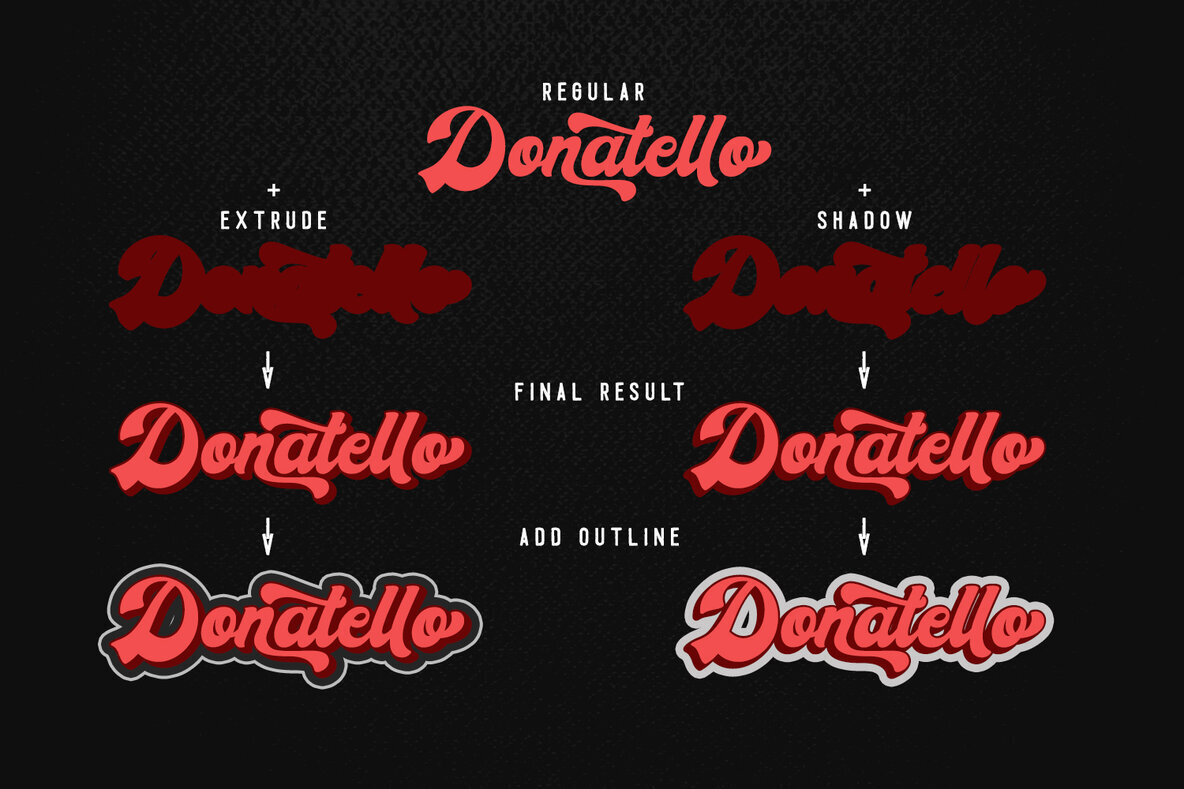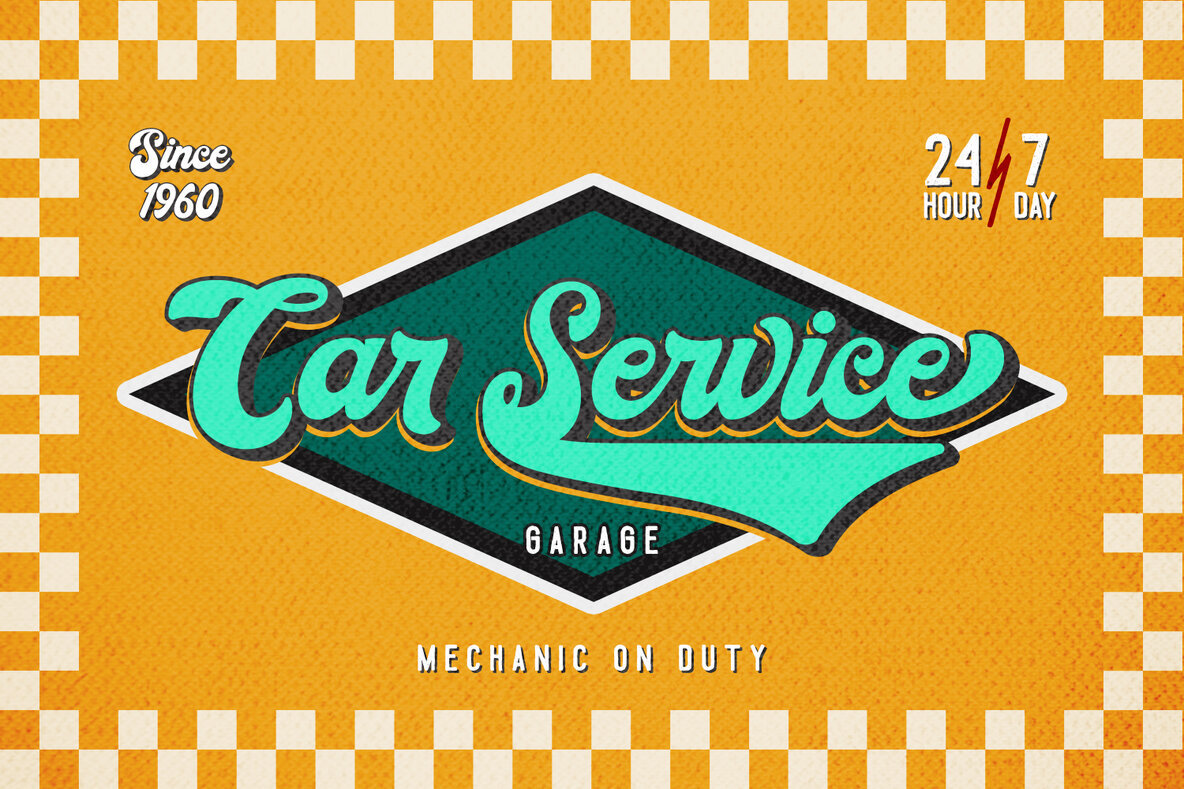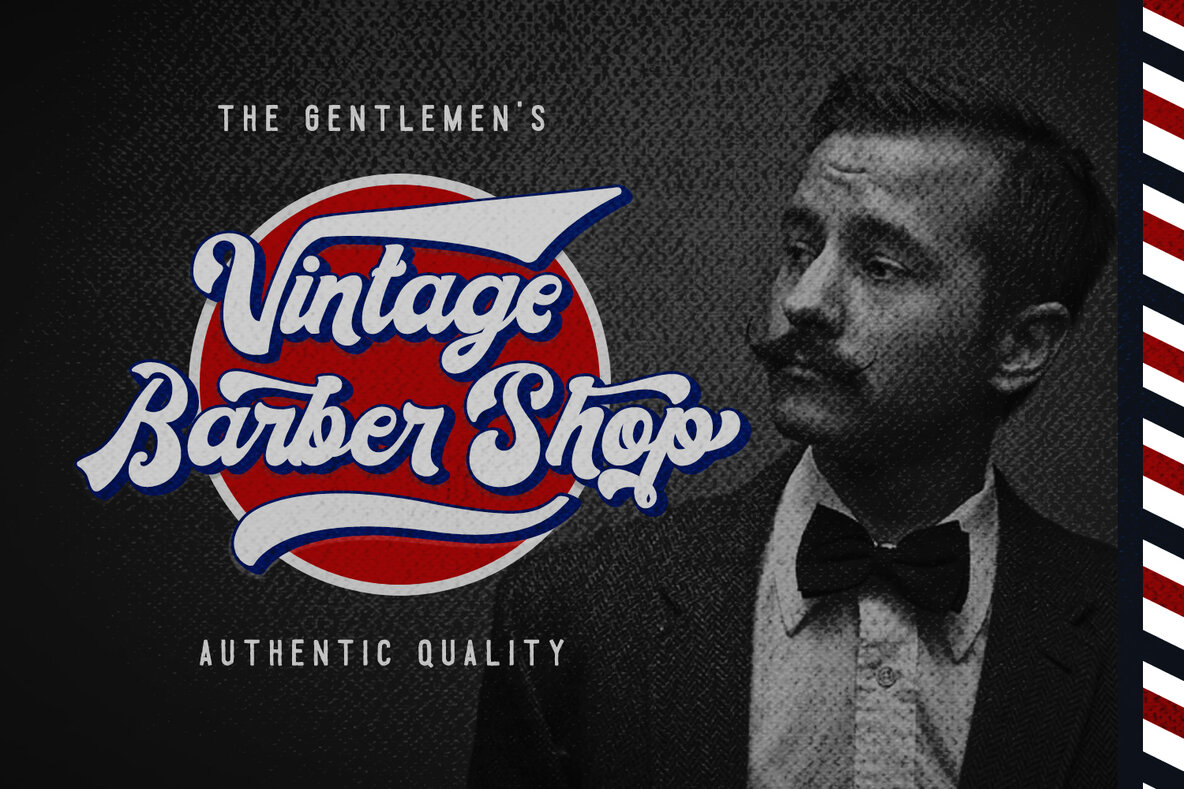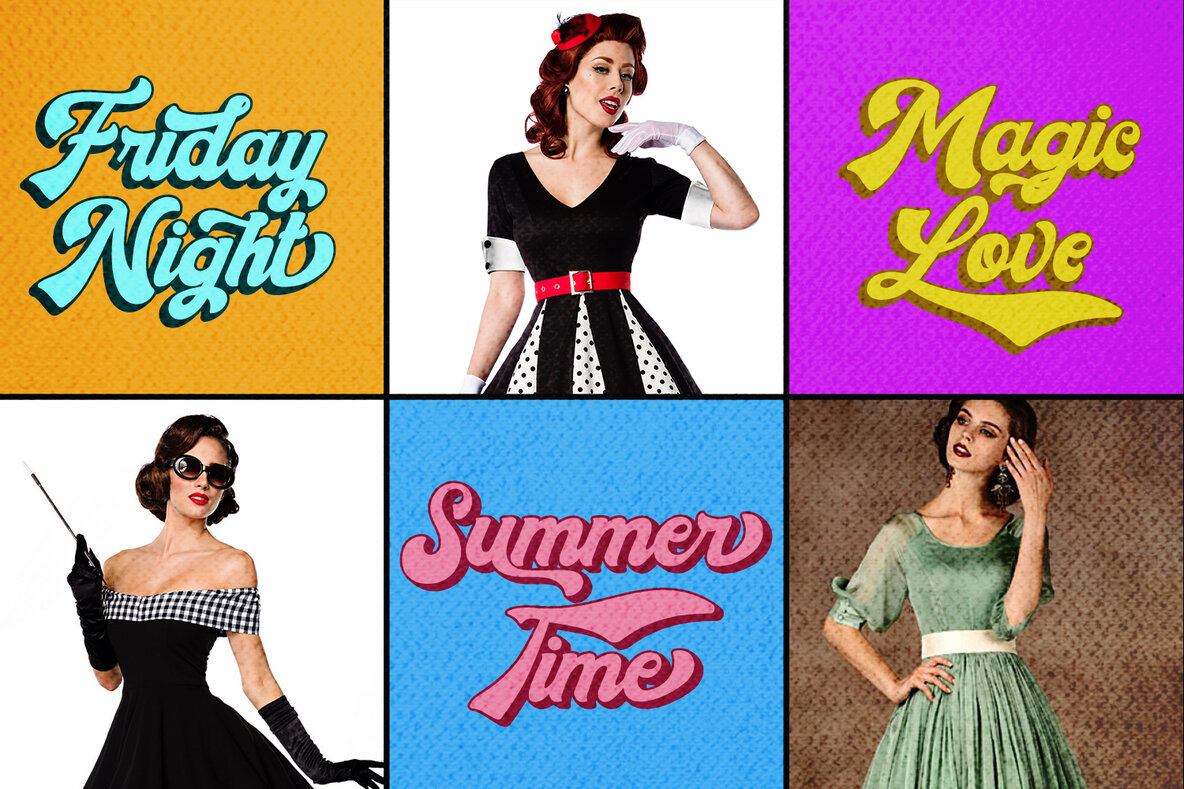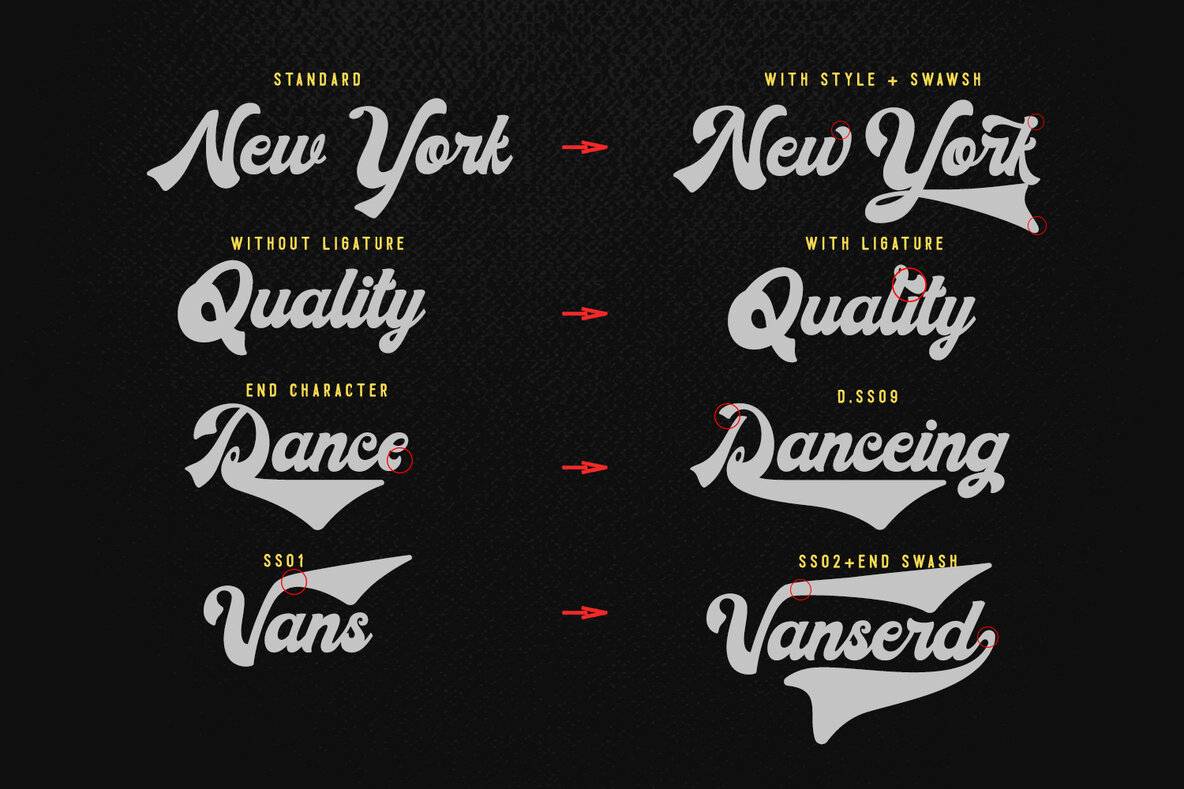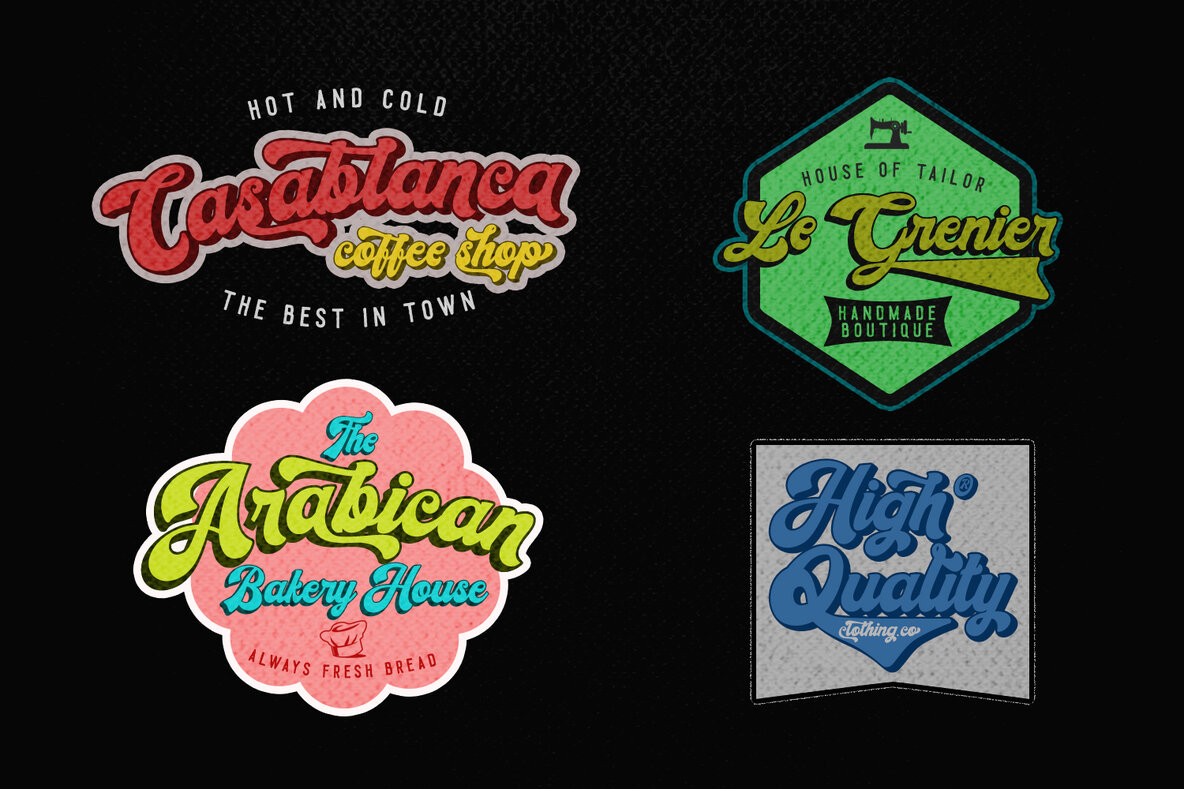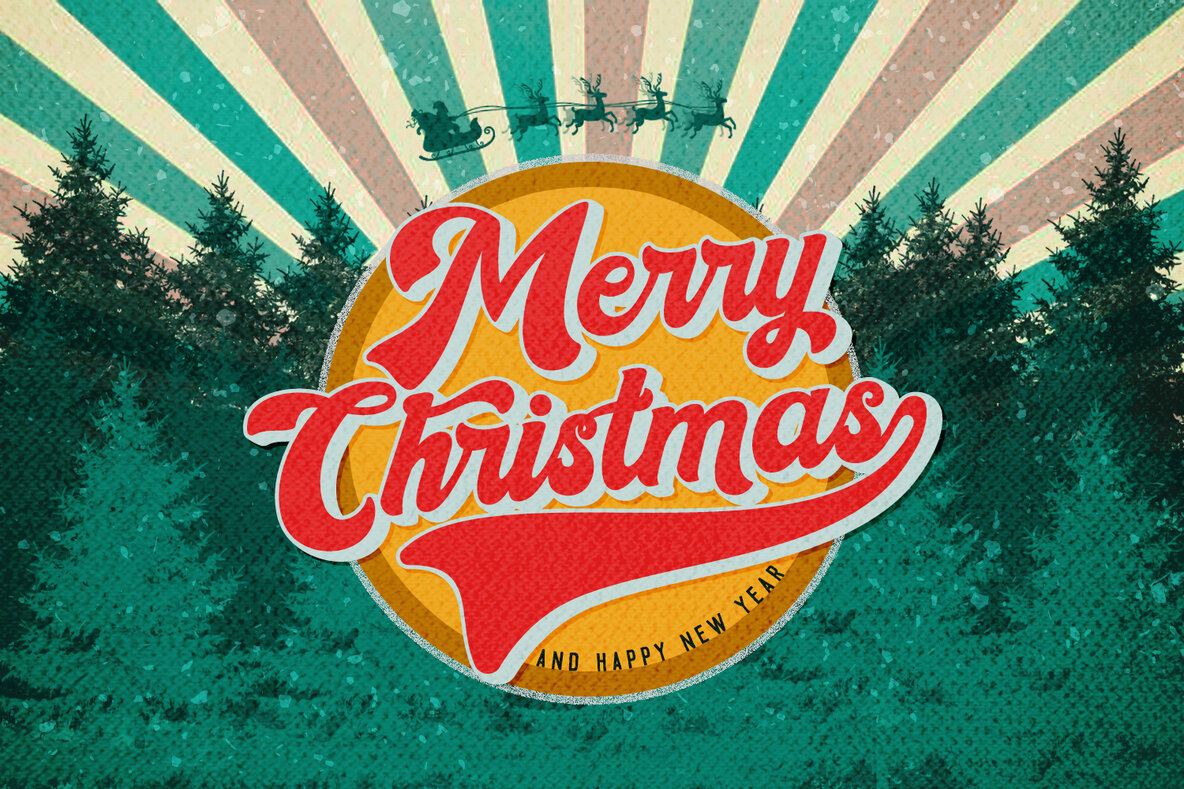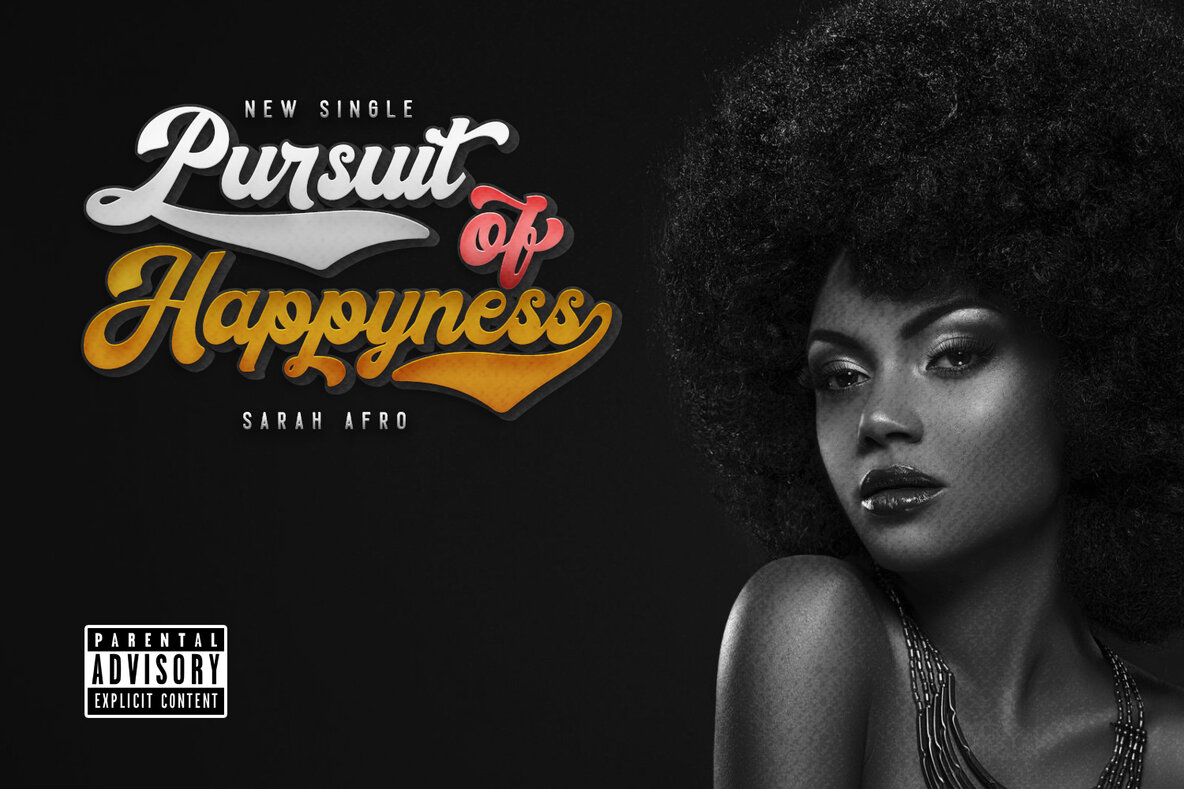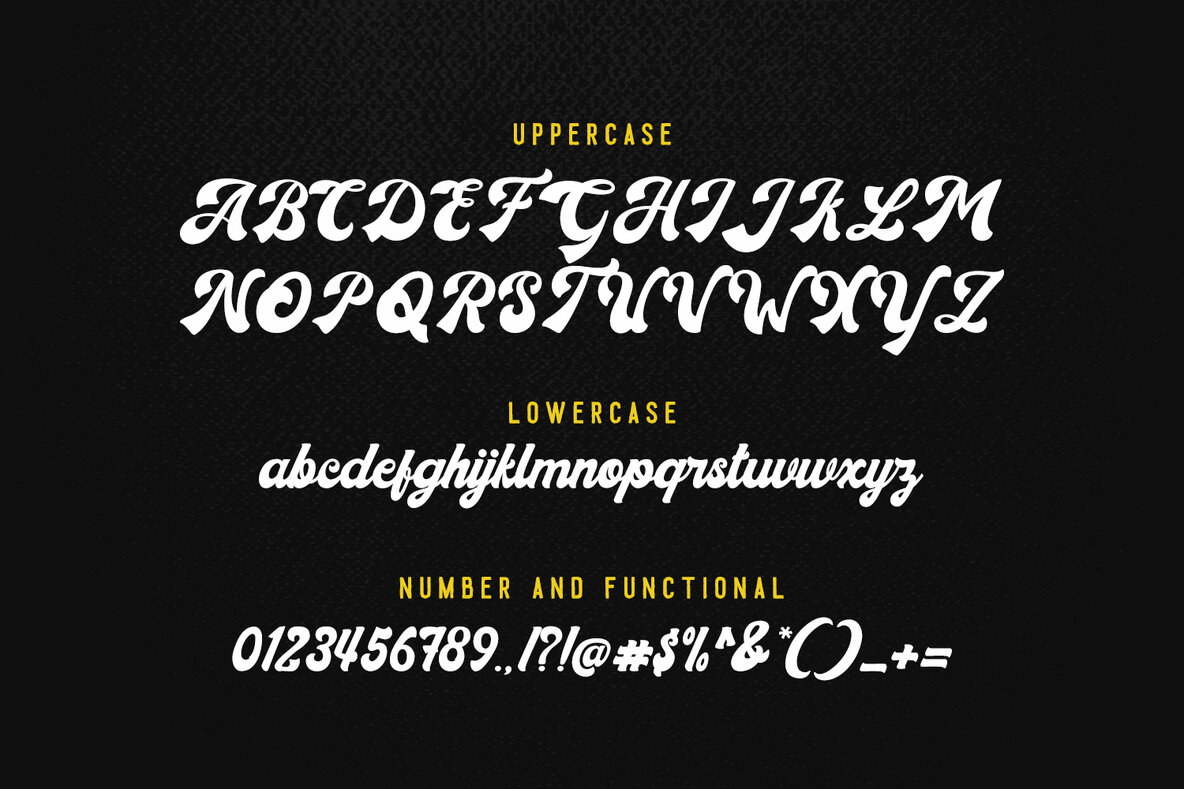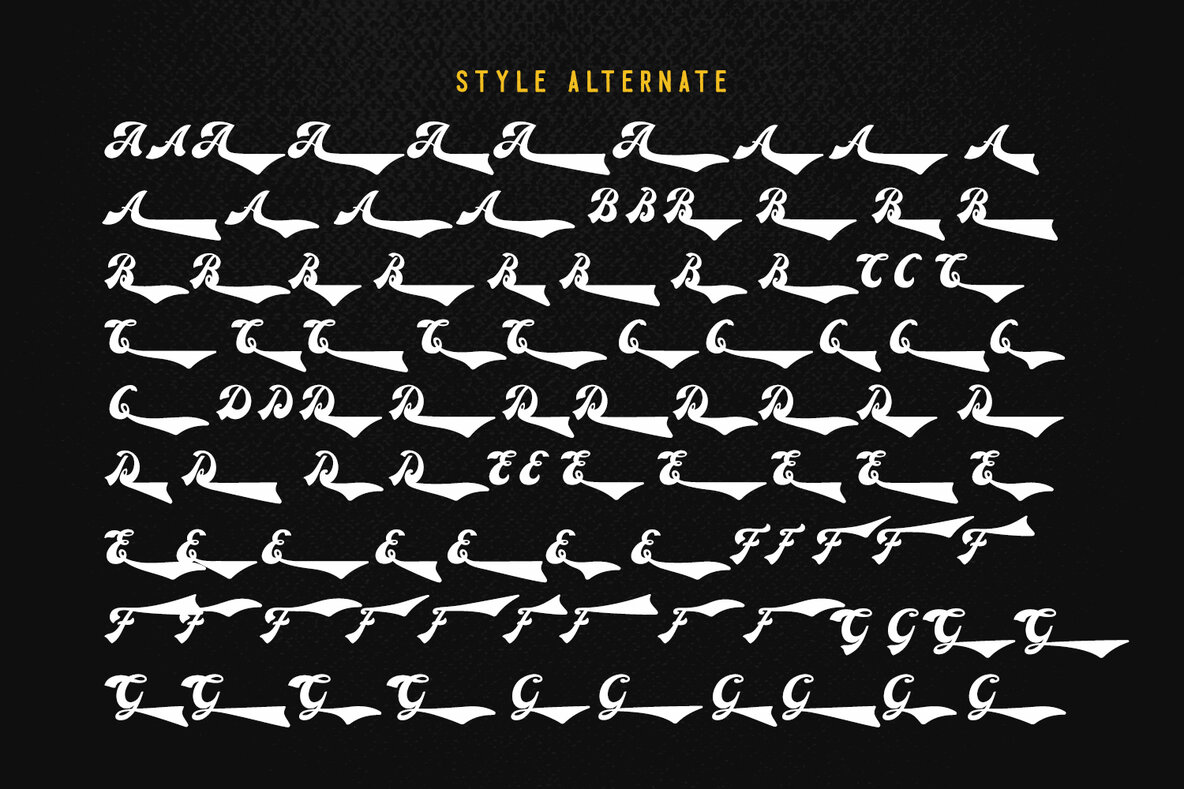
Donatello Font
Donatello Regular
Donatello Extrude
Donatello Shadow
Drawing inspiration from the retro aesthetics of the 1970s, Donatello Retro Script offers a nostalgic yet versatile typeface ideal for various creative projects. Its unique design, featuring Regular, Extrude, and Shadow styles, allows designers to efficiently craft visually engaging designs.Donatello Retro Script: A Nod to the Seventies
Incorporate Donatello into your design repertoire to add a touch of vintage flair and charm.